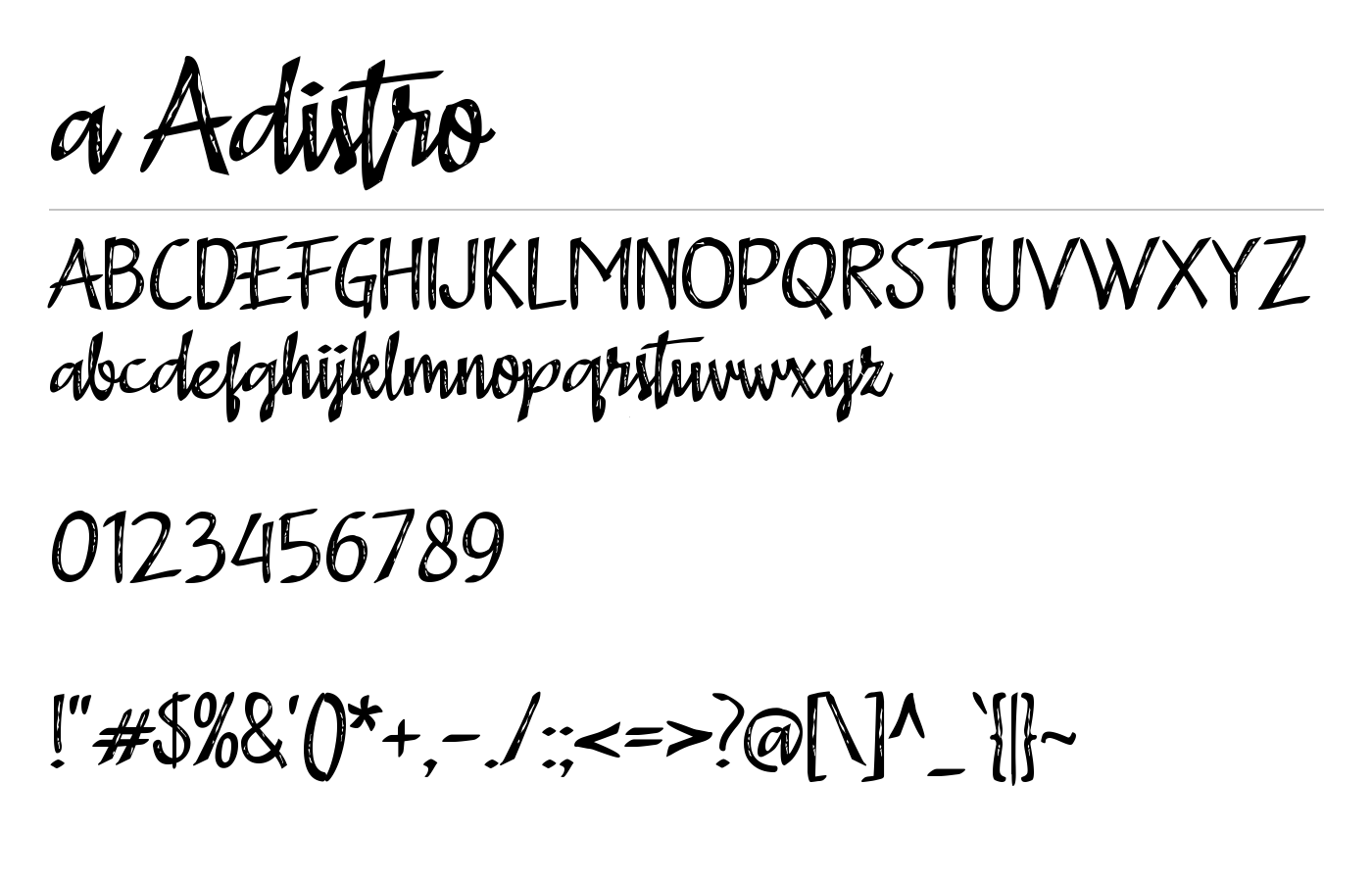
Adistro is a lively and expressive handwritten font that features a casual, slightly rough texture giving it a creative and personal feel. Its tall, narrow letterforms with uneven strokes and a slight slant convey an informal, artistic vibe, making it ideal for projects that seek a playful yet distinctive style. This font works well for branding, posters, and social media where a human touch and unique personality are desired.
a Adistro Font